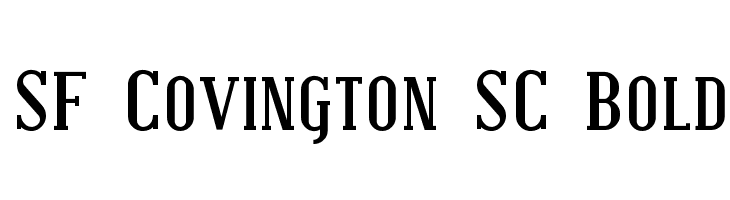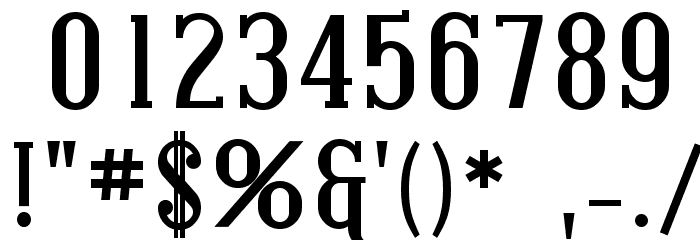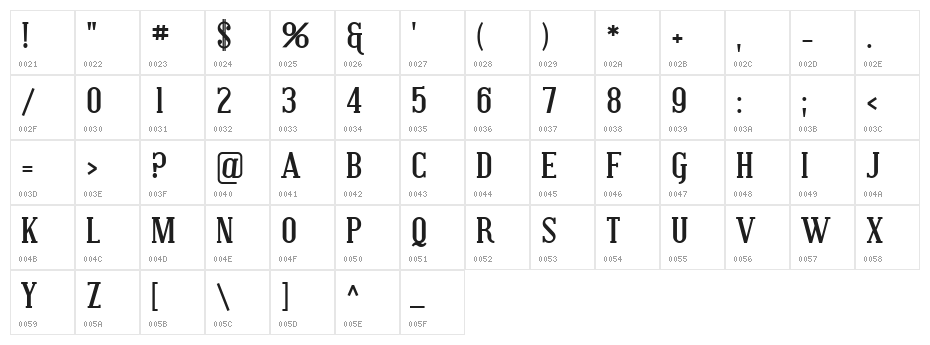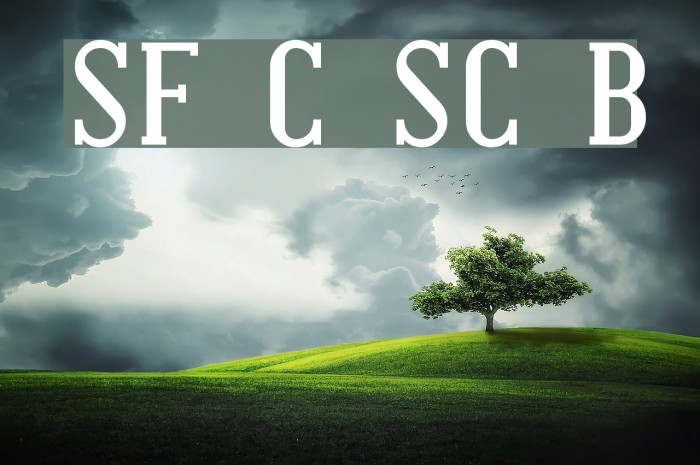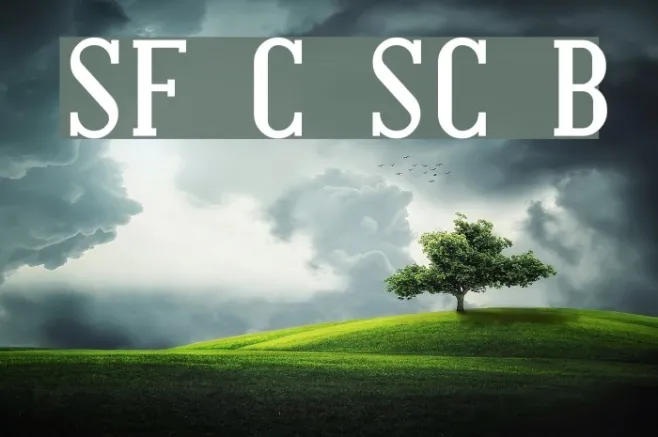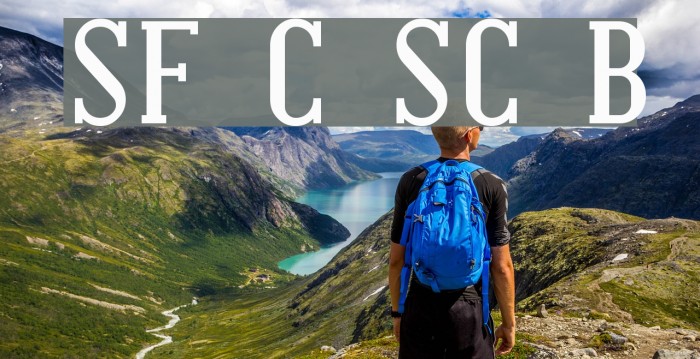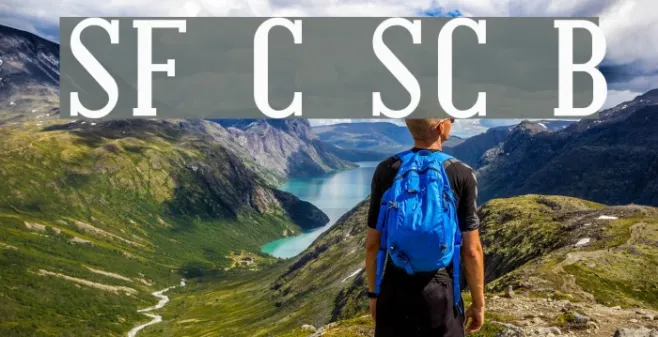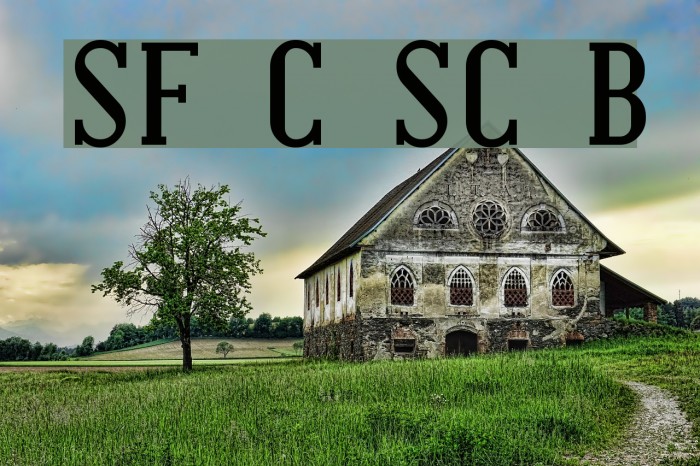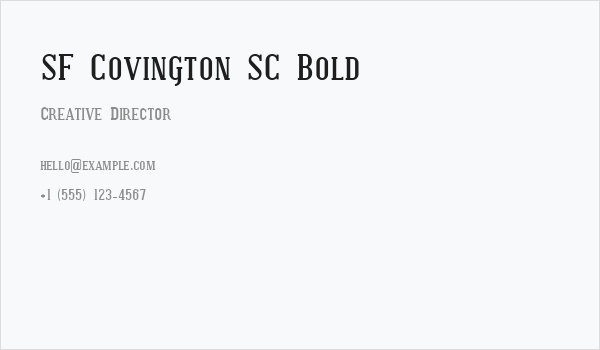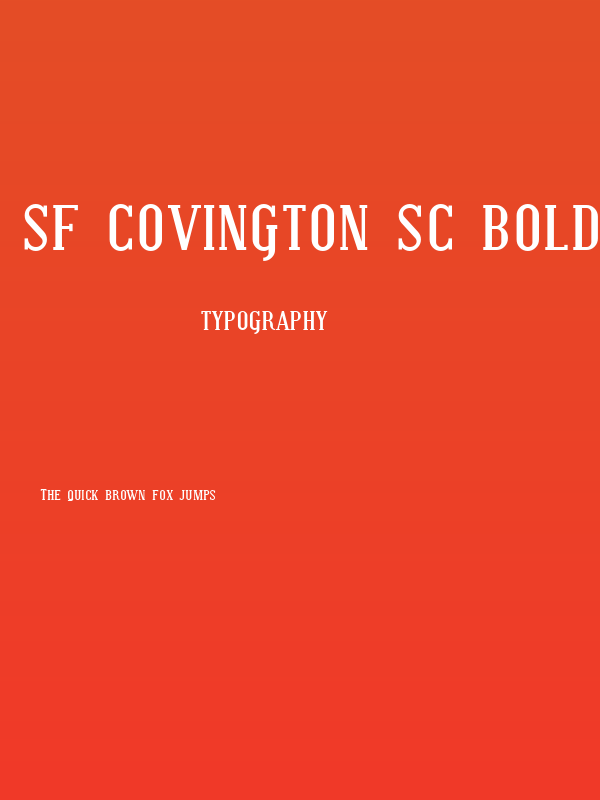
SF Covington SC Bold Font
SF Covington SC Bold Description
This font features a bold and striking serif style, characterized by its strong vertical lines and subtle curves. The serifs are pronounced, adding a classic touch to the overall modern aesthetic. The uppercase letters are tall and commanding, while the lowercase letters maintain a consistent height, ensuring readability. The numerals are clear and distinct, matching the boldness of the alphabet. Special characters are well-integrated, maintaining the font's cohesive look. The overall design is versatile, suitable for both digital and print media.
| Use Case | Headlines, Logos, Editorial Design |
| Proposed Projects | Ideal for headlines, branding, editorial design, and signage. |